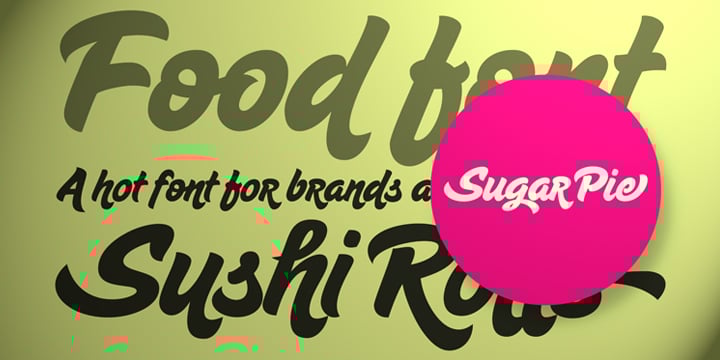
Sugar Pie Font is perfect for sweet bakery branding, candy shop signage, dessert packaging design, children's birthday invitations, whimsical greeting cards, confectionery logos, ice cream parlor materials, cupcake business identity, playful party decorations, and delightful treat marketing campaigns.
What makes Sugar Pie Font so exciting is its irresistibly sweet character that captures the joy and deliciousness of homemade treats and confectionery delights. This typeface features playful letterforms with rounded curves and sugary-sweet construction that evokes the warm comfort of freshly baked goods and candy-coated happiness. The font's cheerful and indulgent character communicates sweetness and celebration, making it perfect for brands seeking to create delightful experiences and appeal to audiences who love treats, celebrations, and the pure joy of sweet indulgences.
Sugar Pie Font family includes Regular, Bold, Light, and Script weights, along with decorative sweets alternates and candy-inspired flourishes. The family also features special character sets including dessert symbols, sweet decorations, and confectionery elements that enhance the font's connection to bakery culture and sweet treat themes.
The Sugar Pie Font Free Download package offers designers access to delightful confectionery typography that brings sweet charm to any dessert-focused project. This delicious typeface combines playful design principles with contemporary functionality, creating a powerful visual tool for sweet brands and celebration-oriented organizations. Whether you're developing bakery identities, designing dessert publications, or creating sweet marketing materials, this font provides the delightful character needed to communicate sweetness and create joyful brand experiences.
Sugar Pie Font supports comprehensive character sets including Latin alphabets, numbers, punctuation marks, and special confectionery symbols. The font's sweetly flowing spacing creates visual delight while ensuring excellent readability across all applications. Its OpenType features include contextual alternates, sweet ligatures, and confectionery decorative elements that expand creative possibilities for dessert design projects.
Professional designers choose Sugar Pie Font for projects requiring authentic sweet appeal and confectionery aesthetics. The font excels in applications where joy and sweetness are essential, offering the perfect solution for brands seeking to communicate indulgence, celebration, and the pure happiness of sweet treats. Its candy-inspired character makes it ideal for bakeries, confectioneries, and celebration-focused businesses.
The Sugar Pie Font Free Download provides creative professionals with an exceptional opportunity to explore confectionery typography. With its sweet character variations, dessert-inspired design elements, and delightful quality, this font represents outstanding value for designers, sweet treat organizations, and creative agencies specializing in joyful visual communications that celebrate the sweetness of life and the delicious world of confectionery artistry and sweet celebrations.